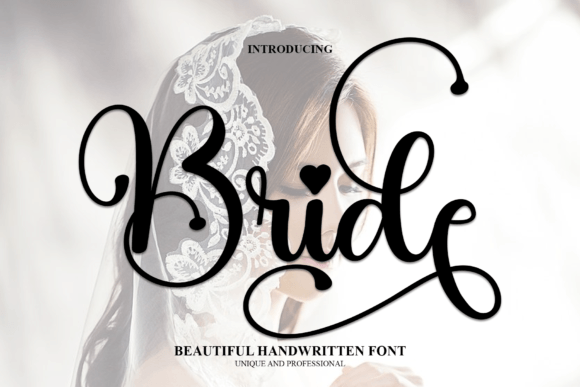
Introducing Bride Font - the ultimate font style for signature lovers. Created by PAYJHOshop, this elegant and feminine typeface is the perfect choice for all your wedding stationery needs. Whether you're creating invitations, designing floral arrangements, or packaging your products, Bride Font will elevate your creations to the next level.
With its delicate curves and graceful lines, Bride Font is the ideal choice for creating stunning headlines. Its script style is perfect for adding a touch of elegance and sophistication to any project. If you're looking to make a lasting impression, Bride Font is the way to go.
But Bride Font isn't just for weddings. It's a versatile font that can be used for a variety of purposes. Whether you're designing social media posts, creating logos, or crafting beautiful packaging, Bride Font is the perfect choice. Its timeless style and classic elegance will ensure that your designs stand the test of time.
And if you're looking for a font that truly captures your personality, look no further than Bride Font. Its unique style is sure to make a statement and leave a lasting impression on your audience. With Bride Font, you can express yourself in a way that's both stylish and sophisticated.